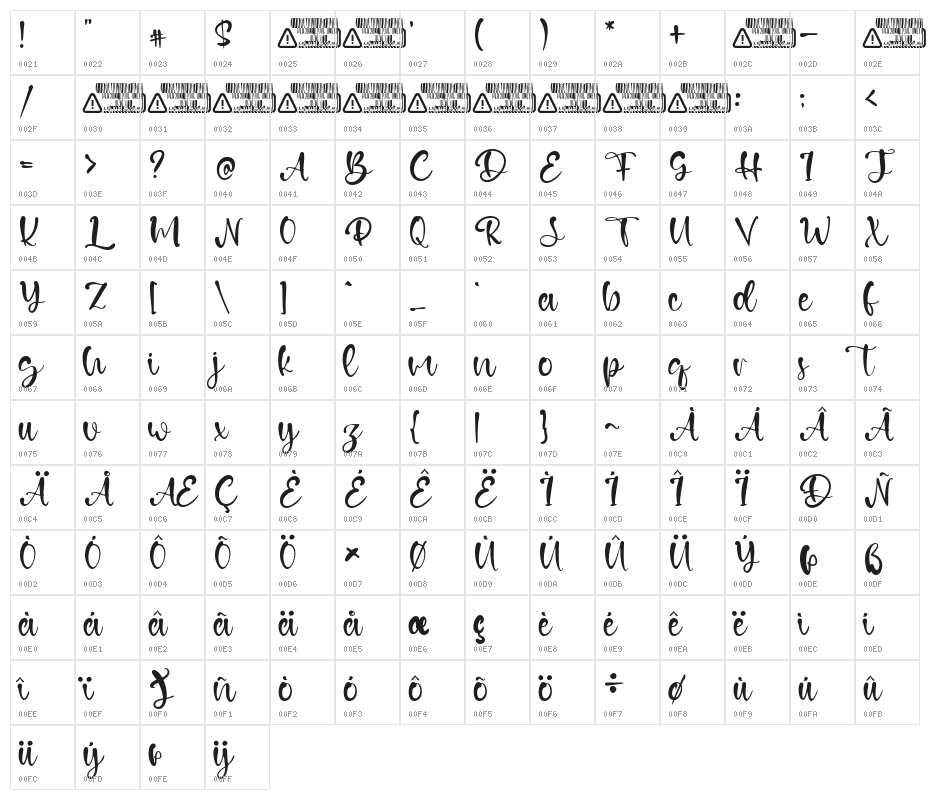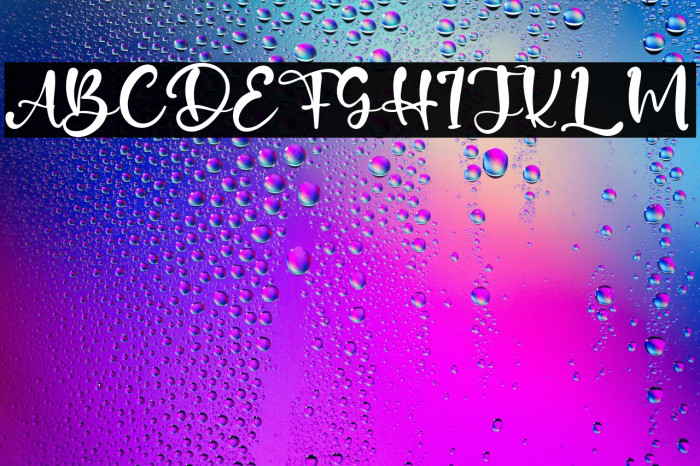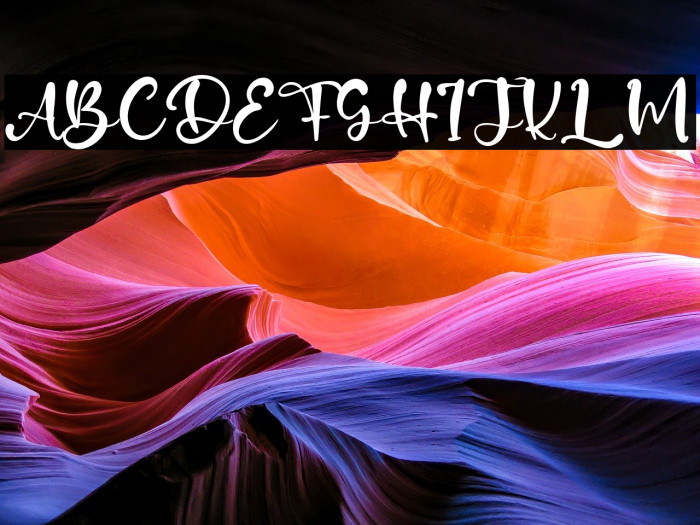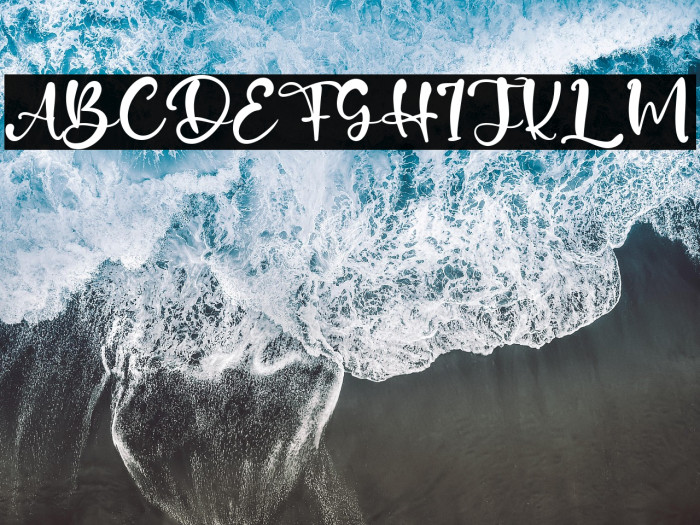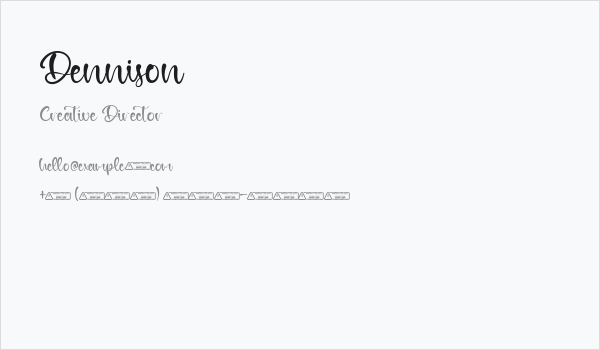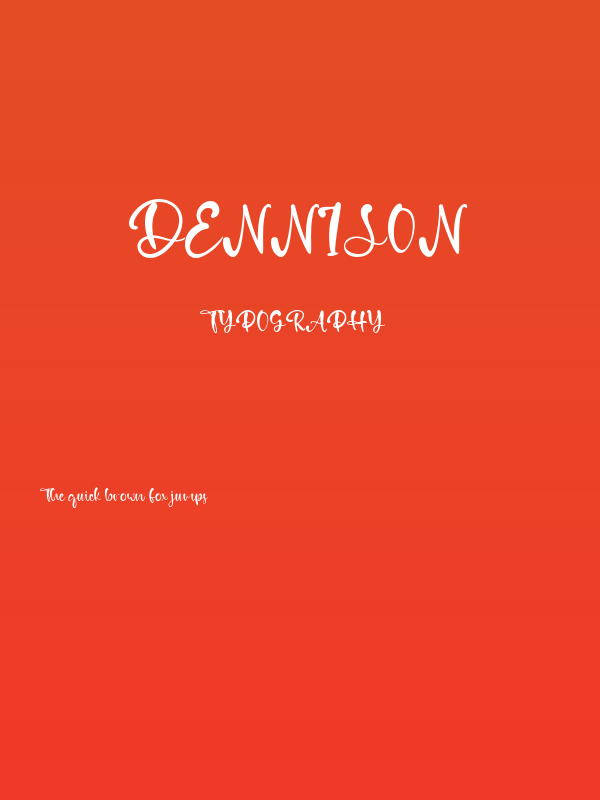
Dennison Font
This font features a dynamic and expressive script style, characterized by its fluid and elegant strokes. The uppercase letters exhibit a graceful flow with distinctive loops and swashes, while the lowercase letters maintain a cohesive and harmonious appearance. The overall design conveys a sense of sophistication and creativity, making it ideal for artistic and decorative applications. The characters are well-balanced, with a moderate contrast in stroke thickness that enhances readability while maintaining an artistic flair. This font is perfect for projects that require a personal and stylish touch.
| Use Case | Logos, Invitations, Artistic projects |
| Proposed Projects | Ideal for wedding invitations, greeting cards, branding, and artistic projects. |